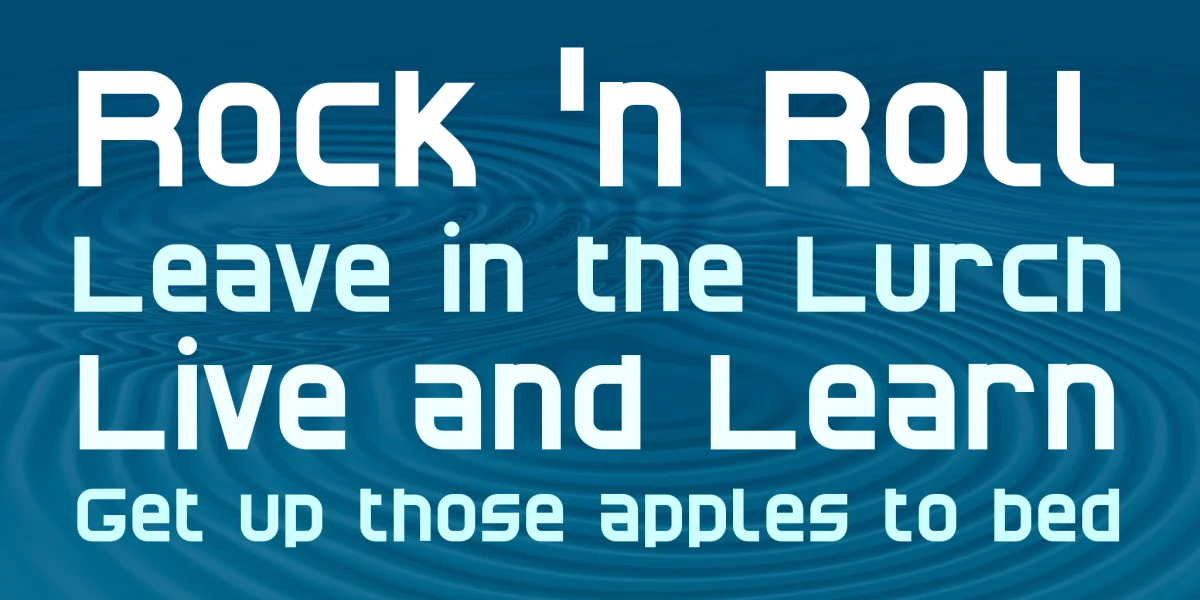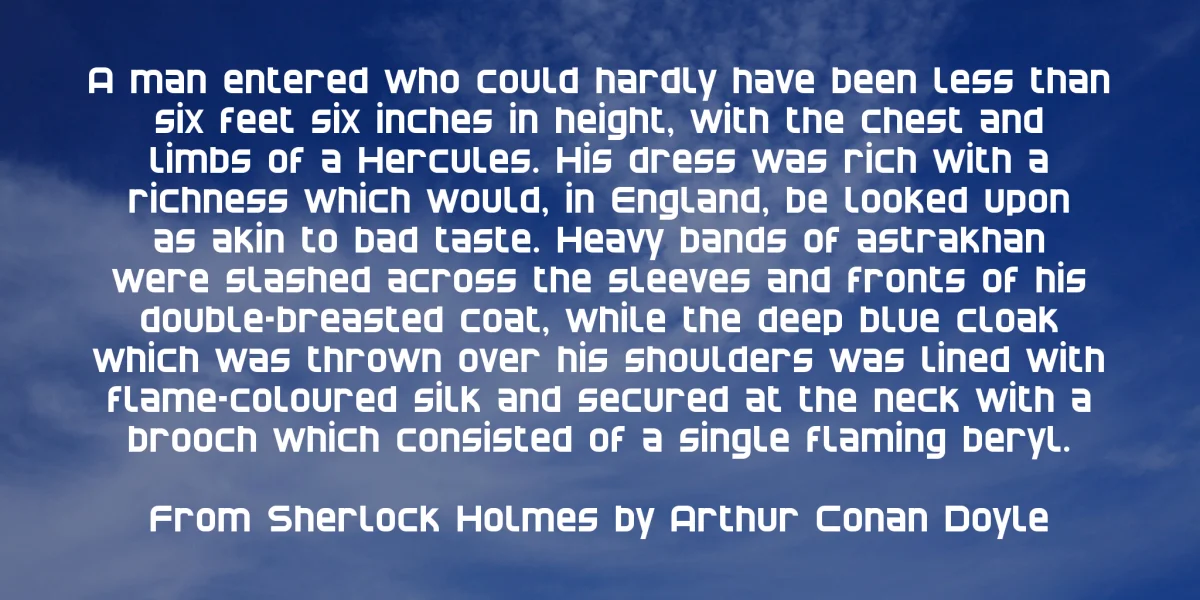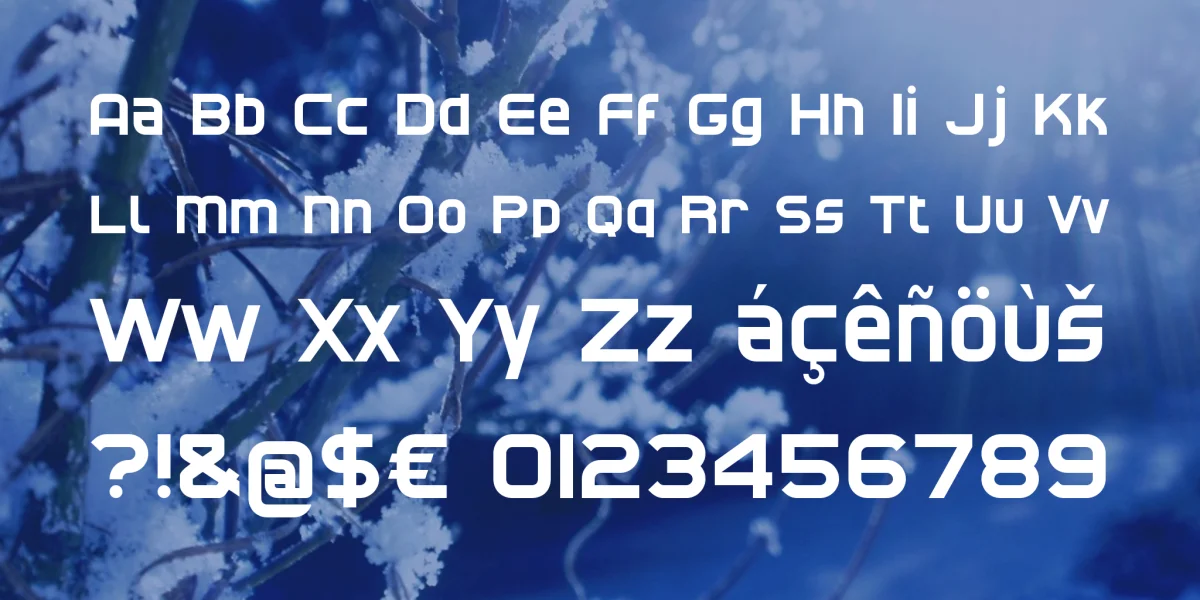
Translated from the original German description: I do not quite recall as how I came about making this font. I think it was thanks to a font identification forum, where a user has asked: what font is that? And had then only a few letters. He wrote that he had been looking for several hours afterwards, while it was certainly a logo that a graphic artist had freely drawn. So I wanted to prove that it is possible to completely reinvent the font from scratch faster than to spend many hours searching. In addition, one then has a font and does not even have to purchase a license. So, I then sat down and assembled this font complete for the Latin alphabet under 2 hours, the whole font.
And so this font wanders into my archive for the first time, but now I have once again put myself to work and made the font really complete. All accented characters for the Latin alphabet, Cyrillic, and even the Greek alphabet, that I first developed even for polyphonic Greek, I added this font. And now I just hope not again someone has to search many hours, only to find my font.